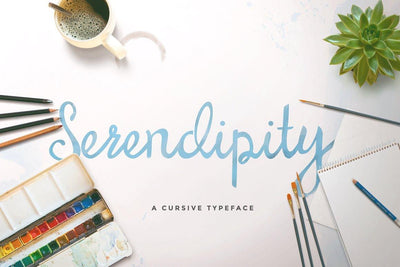
A Serendipity Font
Serendipity is a new hand written font for 2015. Available for both personal and commercial use. No extended license is required. Download and use Serendipity Script for anything and everything.
Including over 90 different hand drawn characters for a range of languages and dialects.